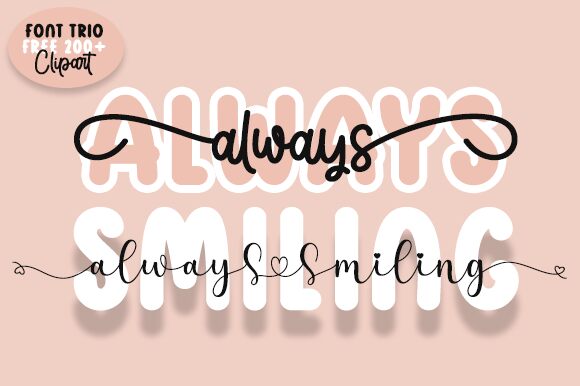
Smiling is a light calligraphy font designed by Nopianti, perfect for Valentine's Day projects. Its elegant and romantic style makes it ideal for wedding invitations, greeting cards, or any other project expressing love and affection.
Smiling
Nopianti